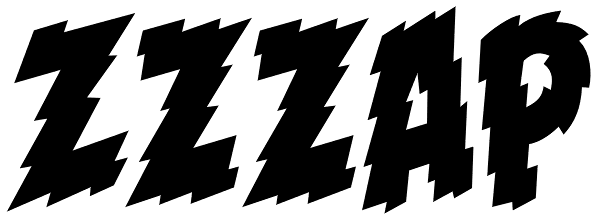
Zzzap
Run your hand under the tap and then thrust your fingers in the electrical outlet nearest to you* and you'll get the same effect that our latest release, ZZZAP will have on comic book readers everywhere when Electro, The Shocker, Black Lightning...
Zzzap
Zzzap Open